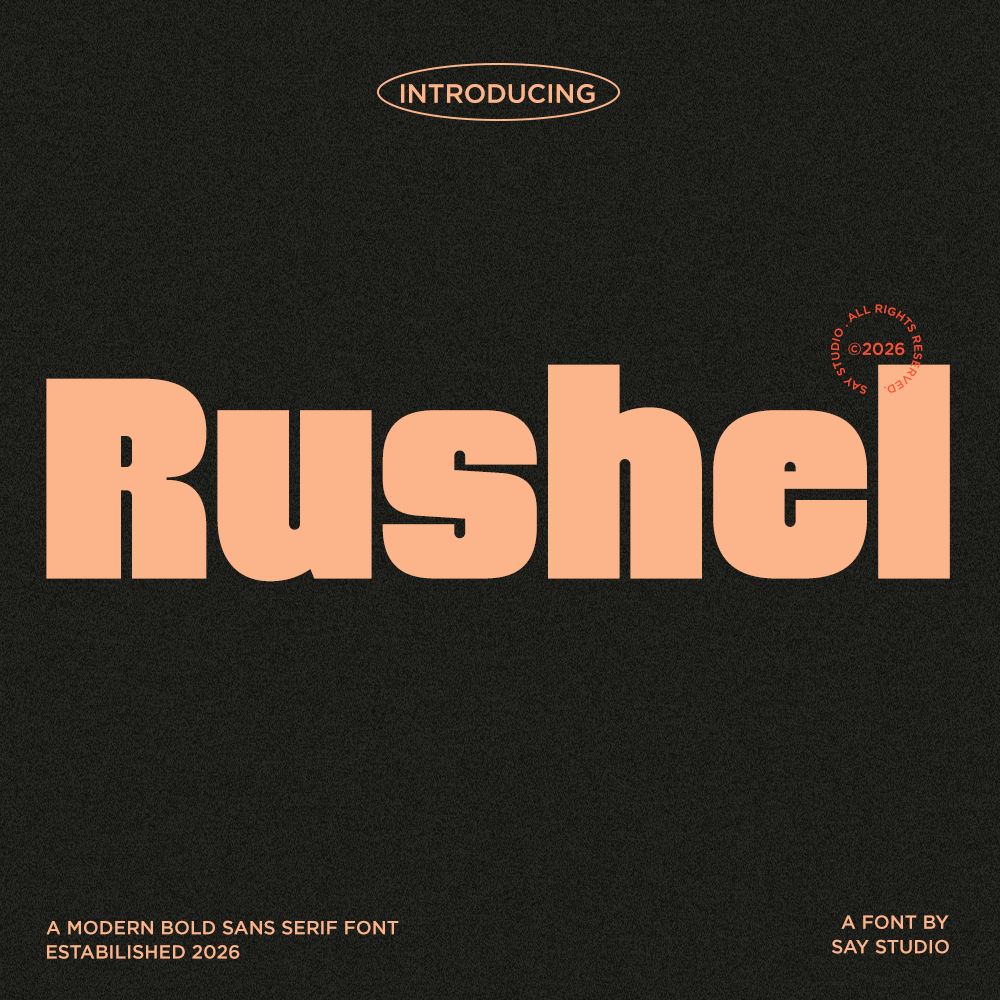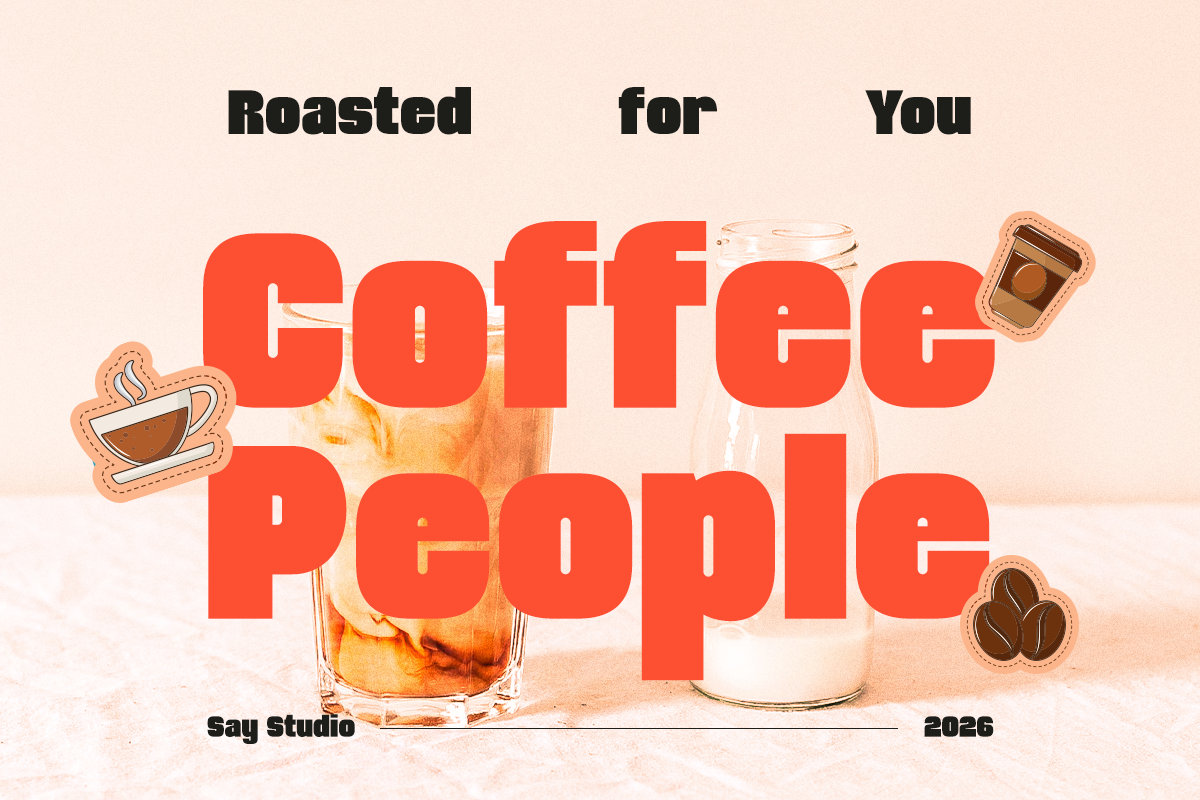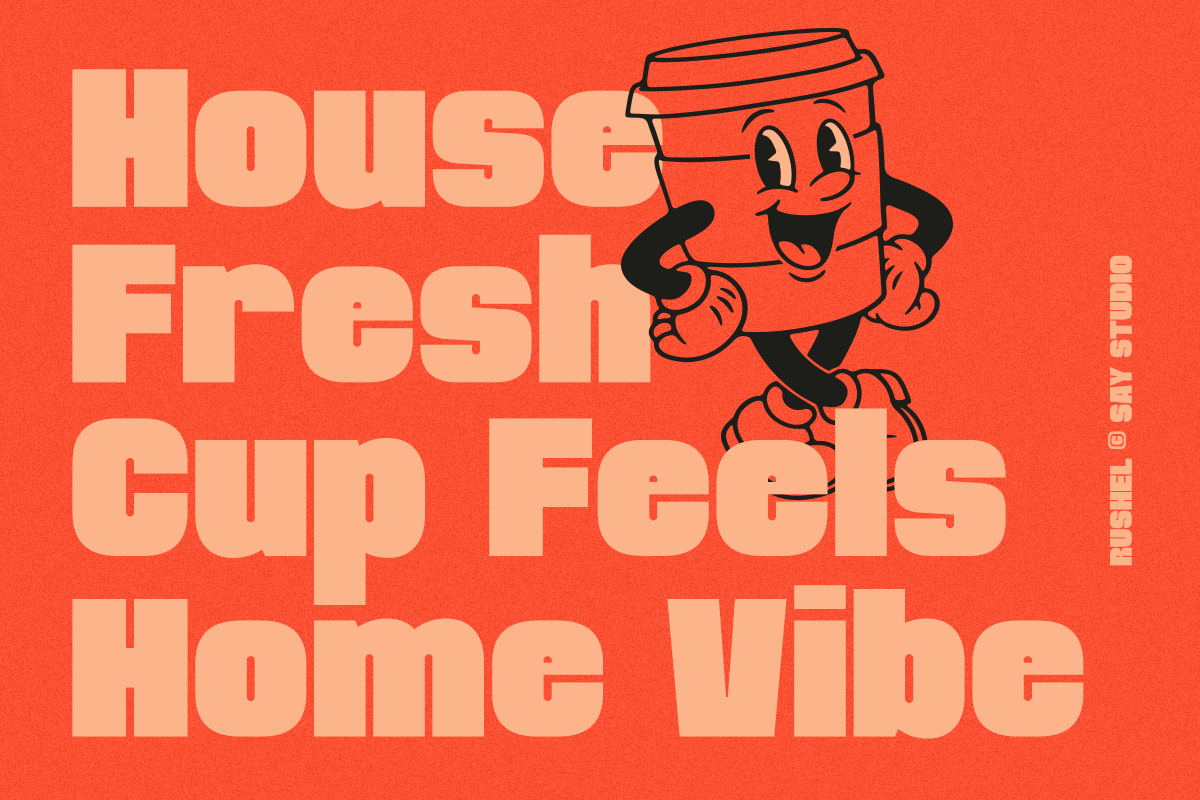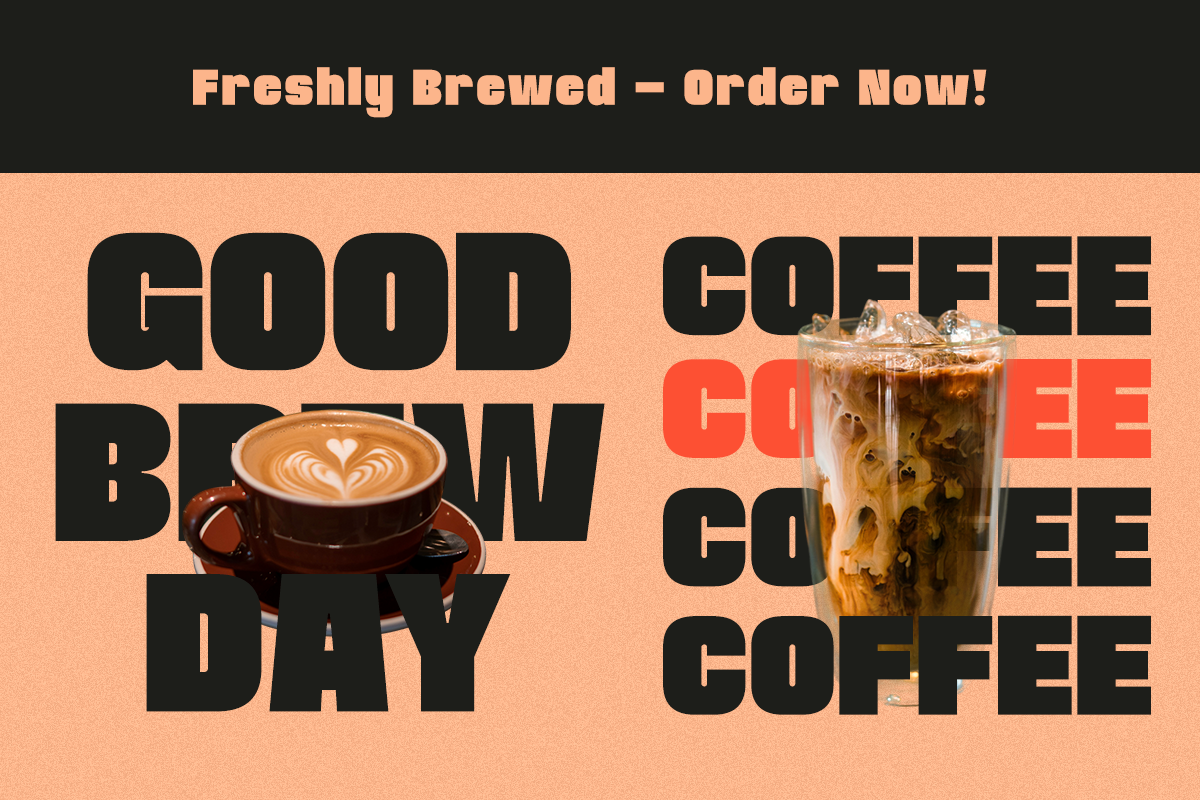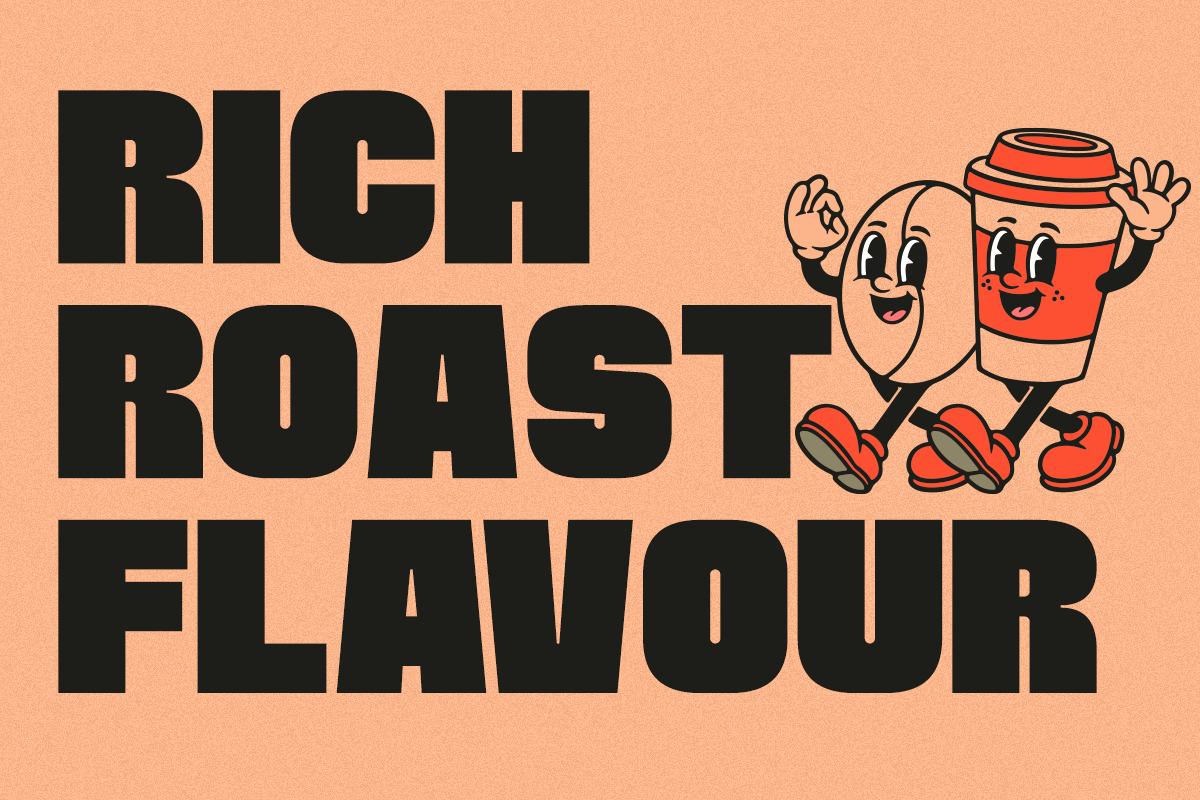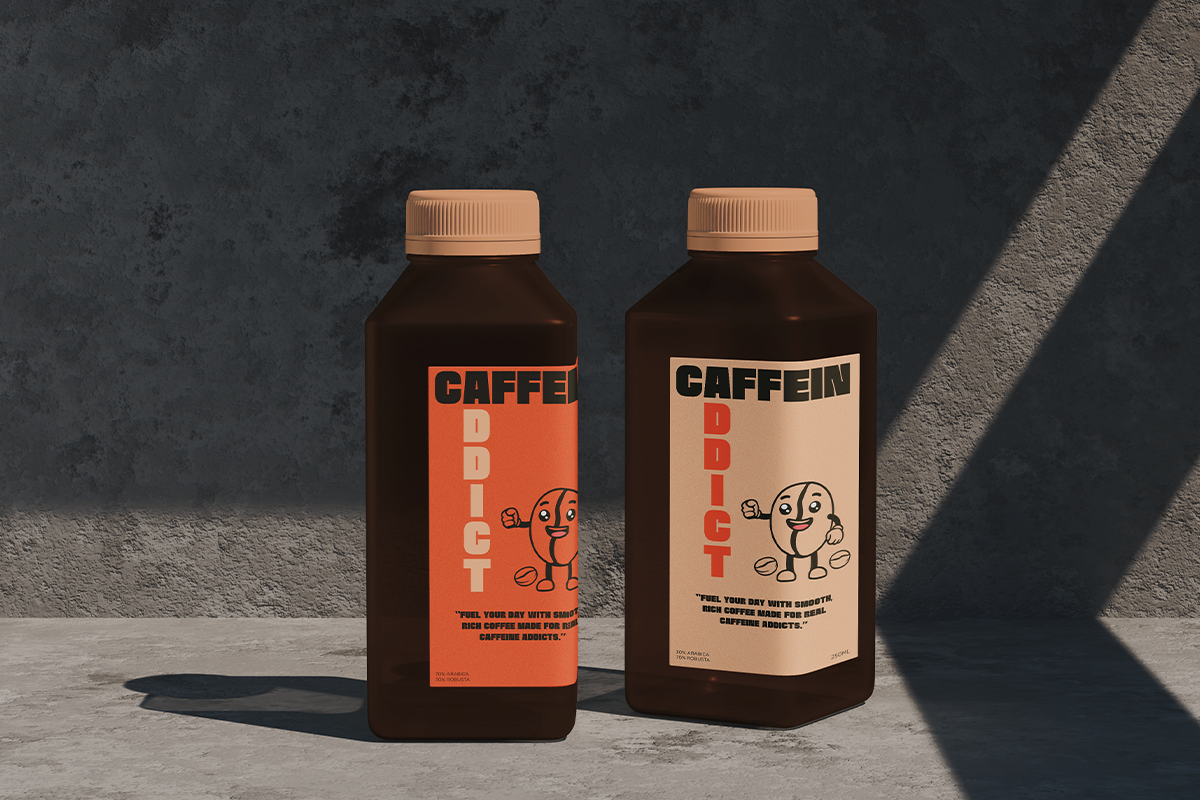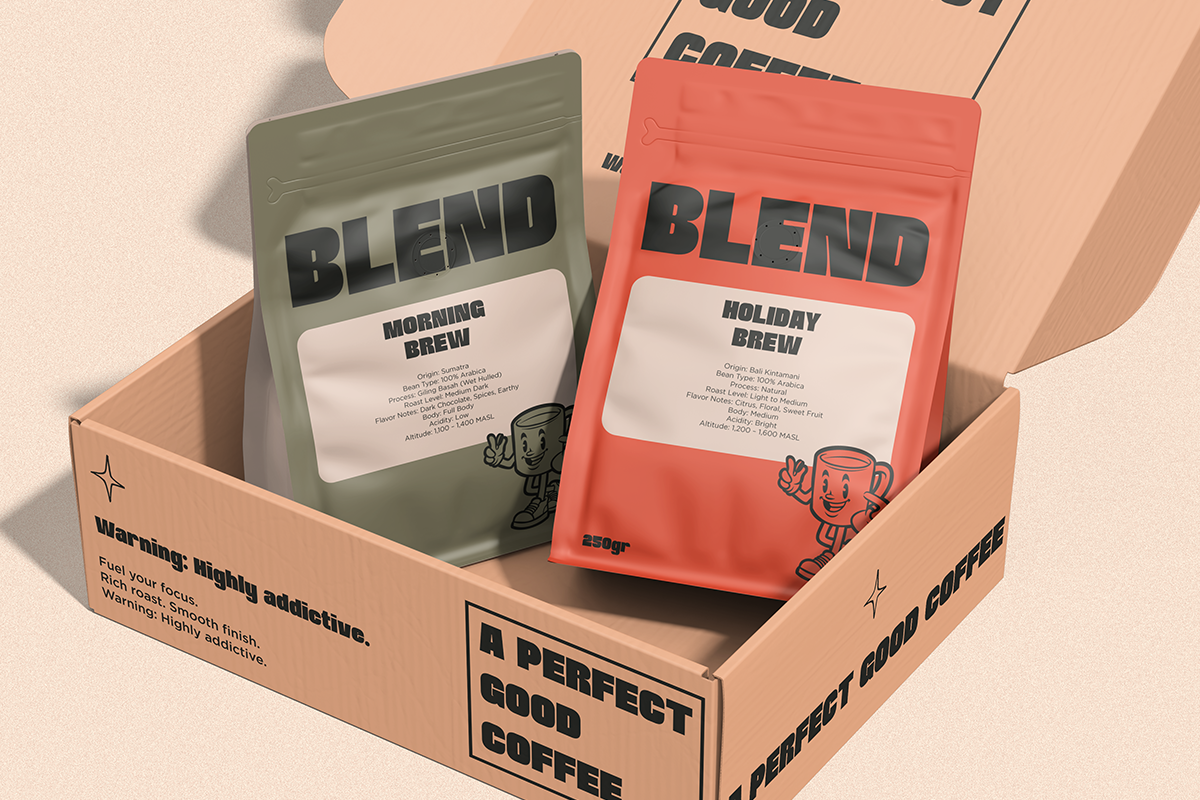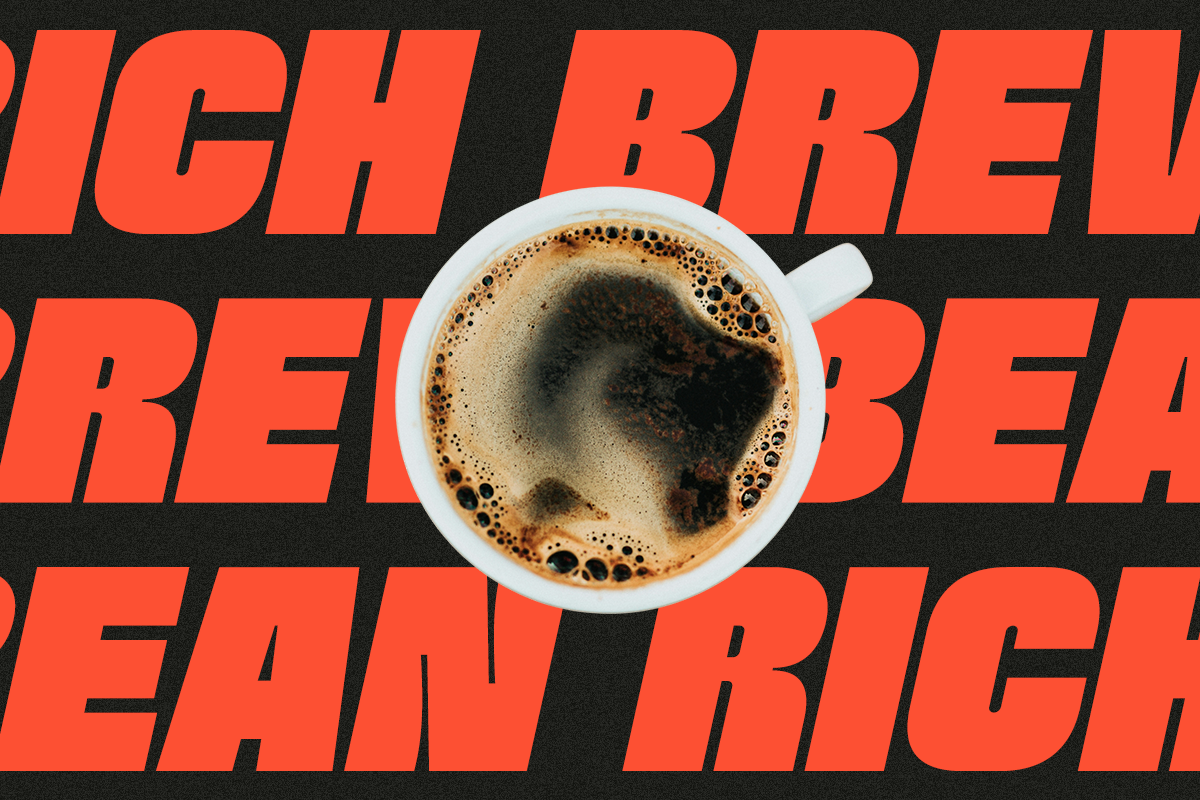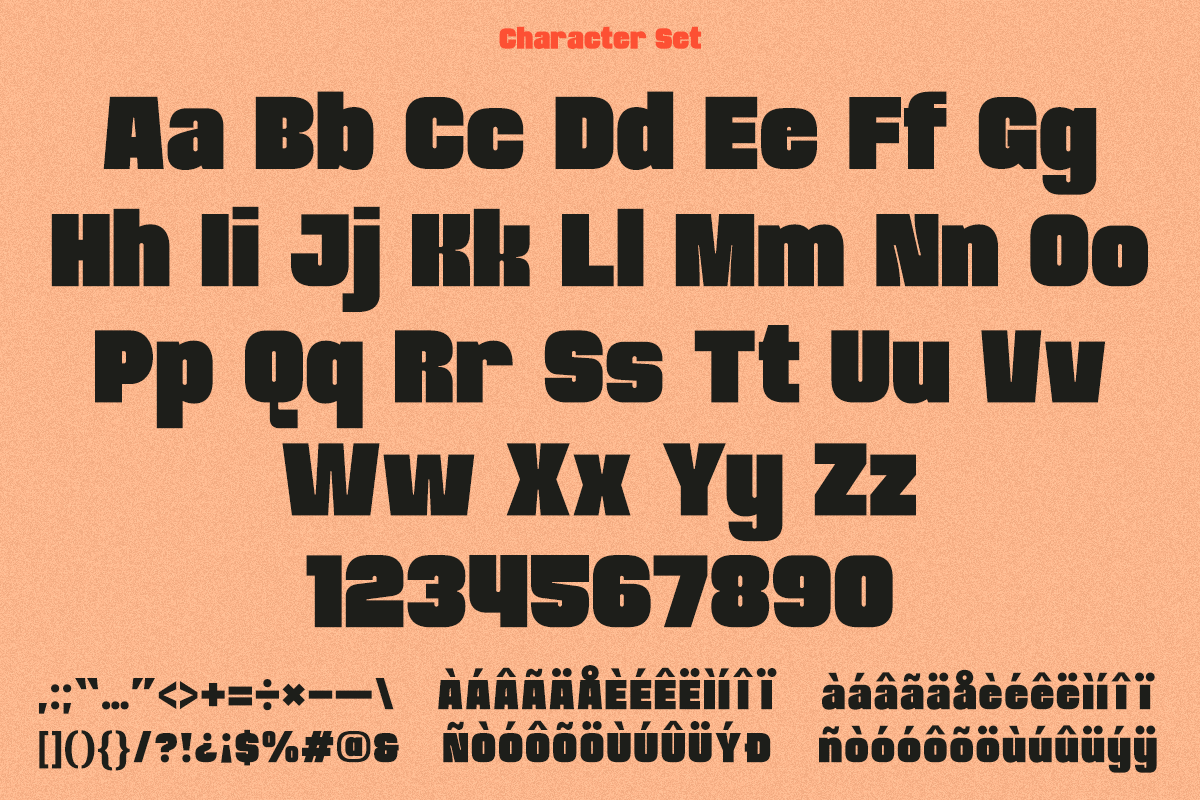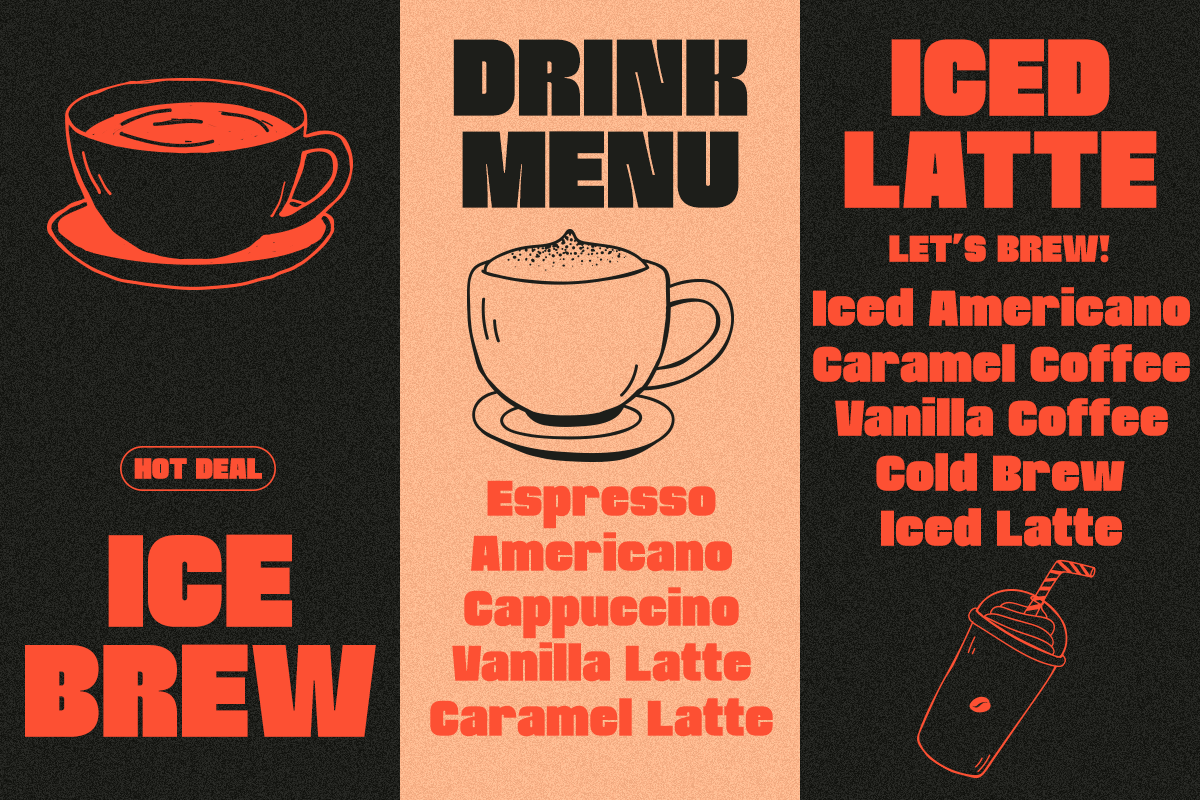
Rushel - Modern Bold Sans Serif Font
Rushel is a modern bold sans serif font crafted for strong visual impact and contemporary branding. With its solid structure and confident proportions, it delivers a clean yet powerful presence that instantly grabs attention. The bold weight and smooth curves create a perfect balance between strength and readability, making it highly versatile across design applications.
Designed for high-visibility projects, Rushel excels in headlines, posters, logos, and digital content. Its modern aesthetic makes it a great fit for branding, tech visuals, streetwear, and advertising campaigns that demand clarity and bold expression. Whether used in minimal layouts or vibrant compositions, Rushel stands out with a distinctive and professional edge.
Equipped with multilingual support and optimized spacing, Rushel ensures consistent performance across different languages and platforms. It’s a reliable choice for designers looking to create impactful visuals with a bold, modern identity.
- Standard Uppercase & Lowercase
- Symbol & Number
- Multilingual Support
Rushel is a modern bold sans serif font designed for strong visual impact, featuring a solid structure and confident proportions for enhanced readability. It includes Rushel Regular and Italic in OTF, TTF, and WOFF formats, supports standard uppercase and lowercase letters, symbols, and numbers, and offers multilingual support for versatile design applications.